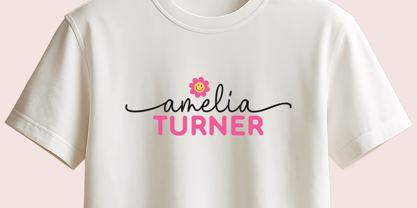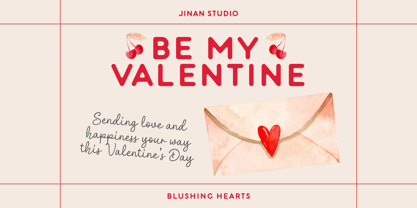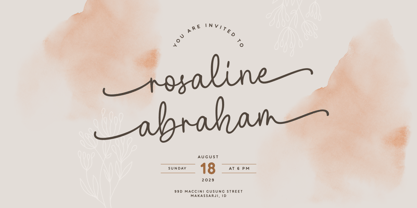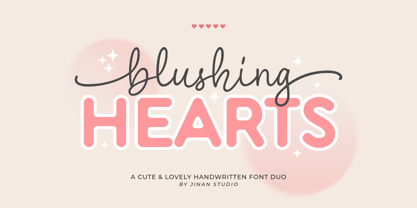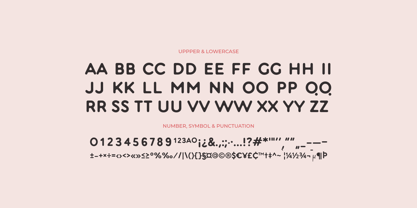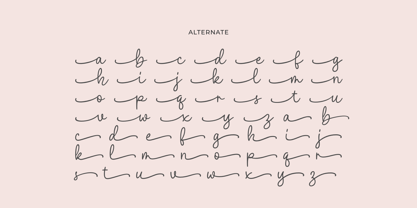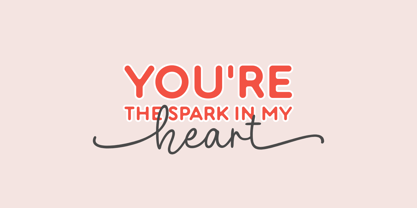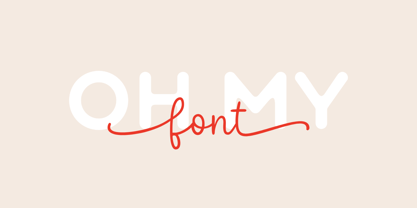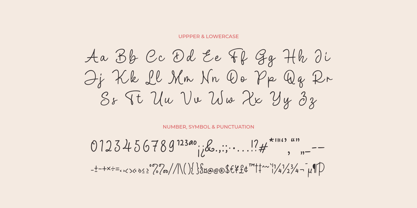
Blushing Hearts
La familia tipográfica Blushing Hearts fue diseñada por Andi Syahdang, Ainun Jinan y publicada por Jinan Studio. Blushing Hearts contiene 2 estilos y opciones de paquete familiar. Más información sobre esta familia
Blushing Hearts is a cute and romantic Valentine font duo featuring a lovely handwritten script paired with a bold rounded display font. Designed to create warm, sweet, and eye-catching typography, this font duo is perfect for Valentine projects and love-themed designs. This versatile duo works beautifully for wedding invitations, branding, packaging, greeting cards, social media content, Cricut projects, stickers, apparel, merchandise, and romantic quotes. The script adds a natural handwritten feel, while the bold font gives a playful and lovable impression. Perfect for designers and crafters looking for a cute Valentine font, romantic typography, or a charming handwritten font combination. Perfect for: Valentine designs, wedding projects, branding, packaging, social media, greeting cards, stickers, crafts, and merchandise. Spread love in every design with Blushing Hearts Font Duo. Features A set of uppercase and lowercase glyphs Number, symbol, and punctuation Alternate Multilingual Support